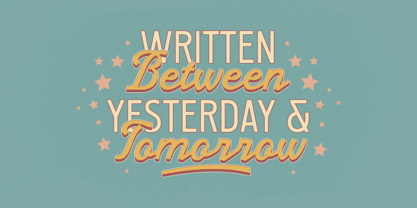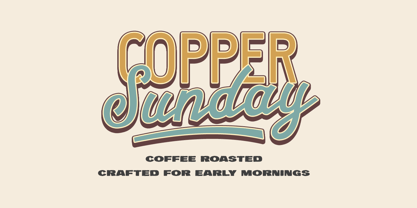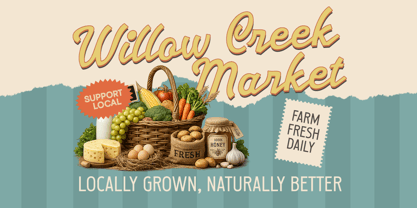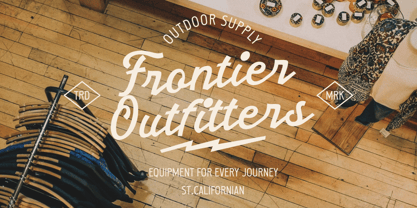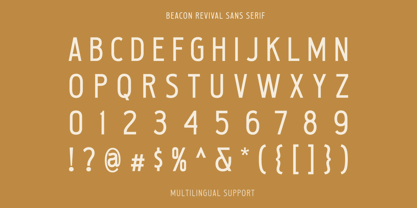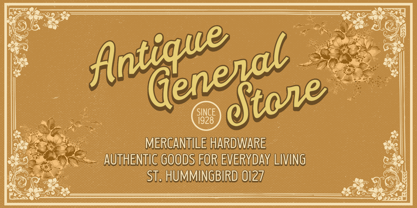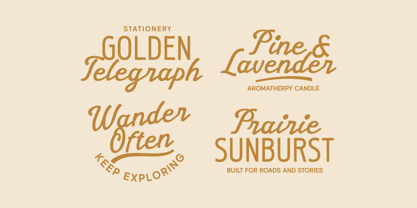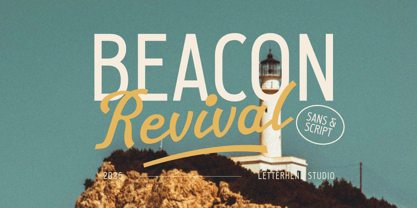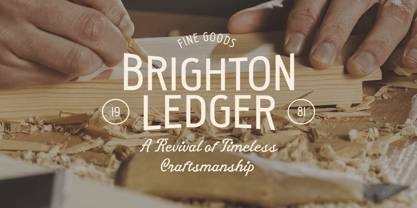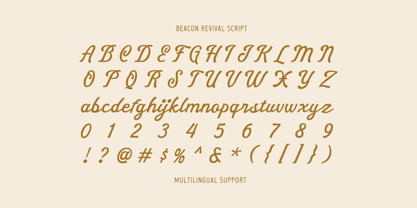
Beacon Revival
The Beacon Revival Font Family was designed by Hendry Juanda and published by Letterhend. Beacon Revival contains 2 styles and family package options. More about this family
Beacon Revival is a retro-inspired font duo featuring a clean condensed sans and a smooth vintage script. Designed with classic signage, travel posters, and nostalgic branding in mind, it delivers a timeless look that feels warm, authentic, and effortlessly stylish.
Features:
• Uppercase & lowercase
• Script & Condensed Sans
• Numbers and punctuation
• Multilingual Support
• PUA encoded